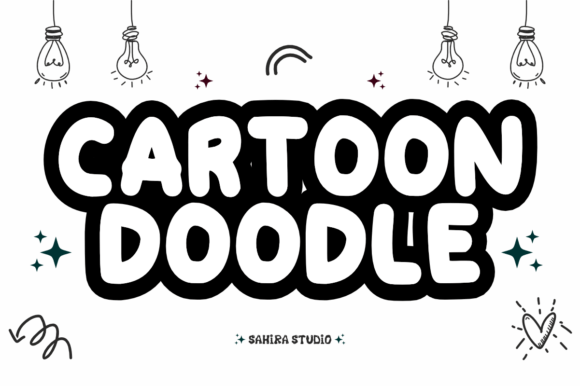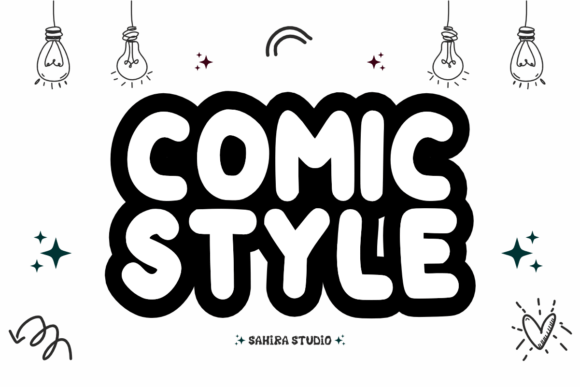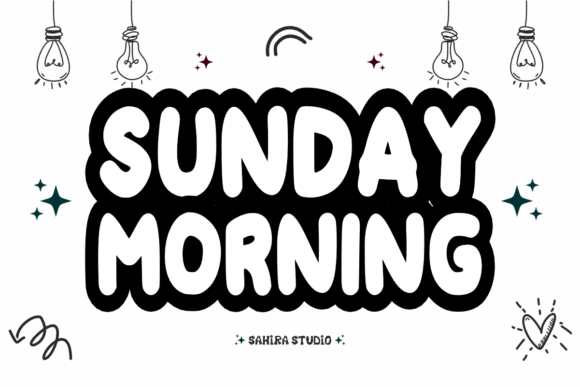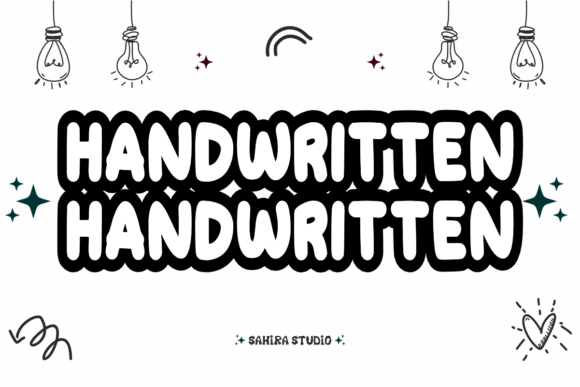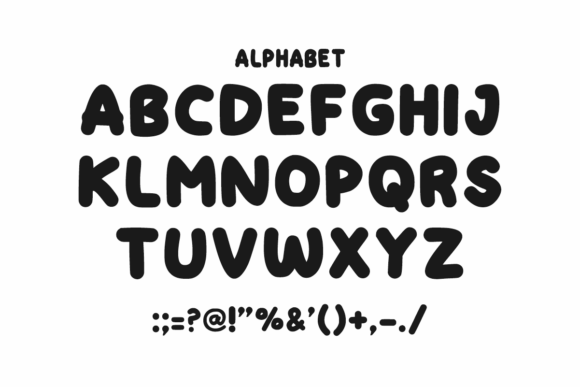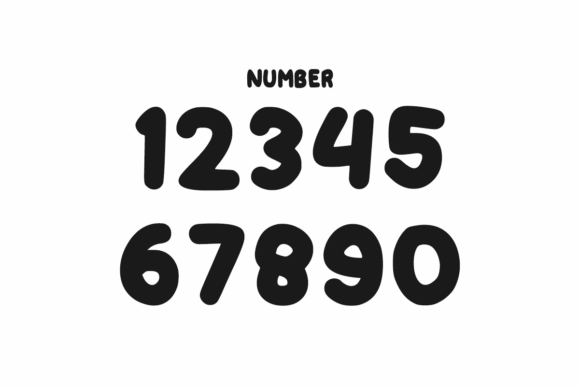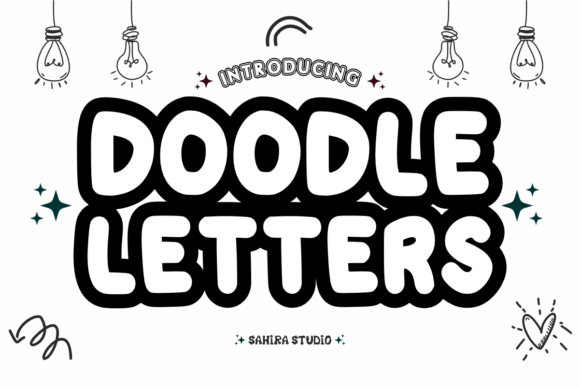
Doodle Letters Font: A Cheerful and Modern Addition to Your Design Arsenal
Are you tired of using the same old fonts in your designs? Look no further! Introducing “Doodle Letters,” a delightful and modern Doodle cartoon font that’s sure to bring a smile to your face. This charming font consists only of capital letters, each one uniquely crafted to be cute, elegant, and a joy to behold.
What Makes Doodle Letters Font So Special?
Doodle Letters Font is a one-of-a-kind font that’s perfect for designers and crafters who want to add a touch of whimsy to their work. Here are just a few reasons why this font stands out:
- Unique and Cute Characters: Each character in the Doodle Letters Font is carefully crafted to be one-of-a-kind, making it perfect for designs that need a personal touch.
- Modern and Cheerful: This font has a fresh and modern feel that’s sure to appeal to kids and adults alike.
- Elegant and Refined: Despite its playful nature, Doodle Letters Font has an elegant and refined quality that makes it suitable for a wide range of design applications.
Perfect for Kids’ Craft Designs and More
Doodle Letters Font is incredibly versatile, making it perfect for a wide range of design applications. Here are just a few ideas to get you started:
- Kids’ Craft Designs: Add a touch of personality to your kids’ craft designs with this fun and playful font.
- Sublimated T-Shirts: Create eye-catching sublimated t-shirts that kids will love with Doodle Letters Font.
- Mugs and Tote Bags: Add a personal touch to your mugs and tote bags with this cheerful font.
- Animations and Comic Titles: Bring your animations and comic titles to life with the playful and modern Doodle Letters Font.
- Children’s Coloring Books: Create engaging and interactive children’s coloring books with this fun and whimsical font.
- Children’s Supplies: Add a touch of personality to your children’s supplies, such as stickers, stencils, and more.
Let Your Imagination Run Wild!
One of the best things about Doodle Letters Font is its ability to inspire creativity. With its unique and playful characters, you can create designs that are truly one-of-a-kind. Don’t be afraid to let your imagination run wild and experiment with different design ideas.
Tips for Using Doodle Letters Font
Here are a few tips for getting the most out of Doodle Letters Font:
- Experiment with Colors: Don’t be afraid to try out different colors and color combinations to really make your designs pop.
- Mix and Match: Combine Doodle Letters Font with other fonts and design elements to create unique and interesting designs.
- Keep it Simple: Don’t overcomplicate your designs. Sometimes, the simplest designs are the most effective.
In conclusion, Doodle Letters Font is a cheerful and modern addition to any design arsenal. With its unique and playful characters, this font is perfect for designers and crafters who want to add a touch of whimsy to their work. Whether you’re creating kids’ craft designs, sublimated t-shirts, or children’s coloring books, Doodle Letters Font is sure to inspire creativity and bring a smile to your face. So why not give it a try and see what amazing designs you can create?
- Cheerful and modern Doodle cartoon font
- Consists only of capital letters
- Unique and cute characters
- Elegant and refined
- Perfect for kids’ craft designs, sublimated t-shirts, mugs, tote bags, animations, comic titles, children’s coloring books, and more